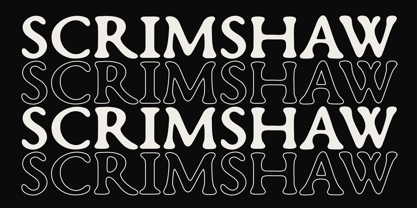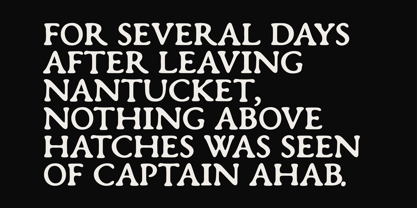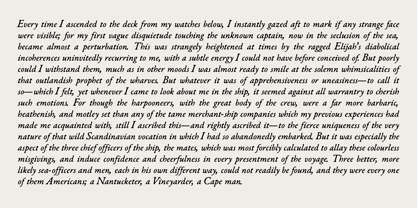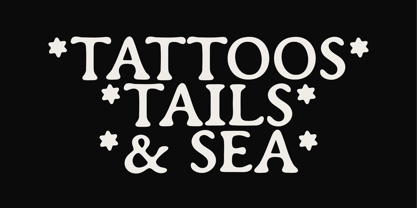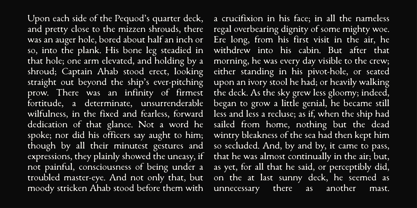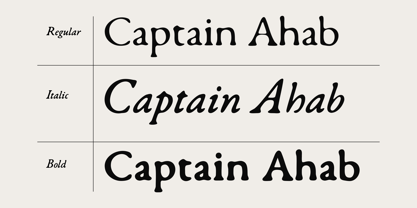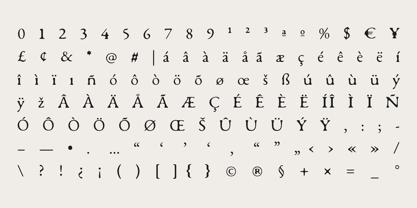
Scrimshaw
by Yazaroo
Scrimshaw is a traditional serif font with a soft weathered edge. It is based on old carvings in bone by whalers on wooden ships and is perfect for old signage, tattoo studios, and rock bars.